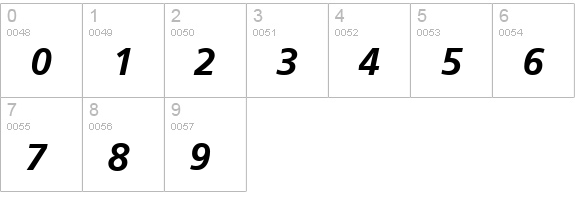
FrontPage-MediumItalic Font Details
FrontPage-MediumItalic font is a stylish and versatile typeface that adds a touch of elegance to any design project. Its medium weight and italic style create a sophisticated and modern look that is perfect for both headings and body text. This font strikes the perfect balance between professionalism and creativity, making it suitable for a wide range of applications. What makes FrontPage-MediumItalic font even more appealing is that it is completely free to download at FontsMarket.com. This means you can easily add this beautiful typeface to your font collection without any cost. Whether you are working on a branding project, a website design, or any other creative endeavor, FrontPage-MediumItalic font is sure to enhance your work with its sleek and contemporary appearance. Download it today and elevate your designs with this stunning font.